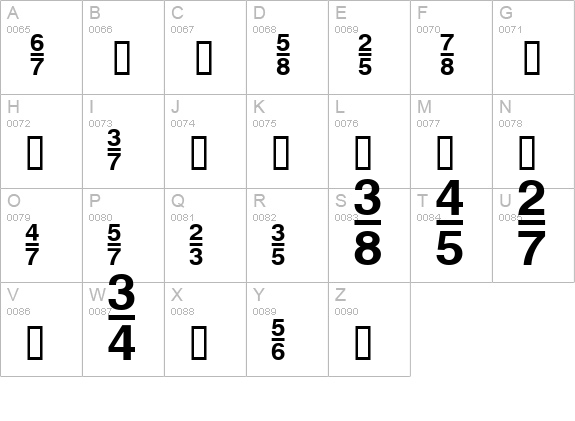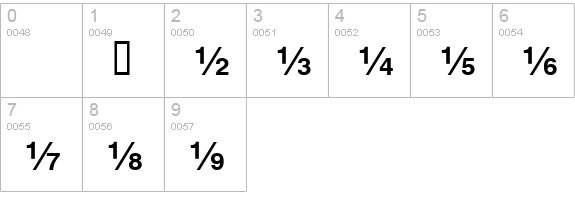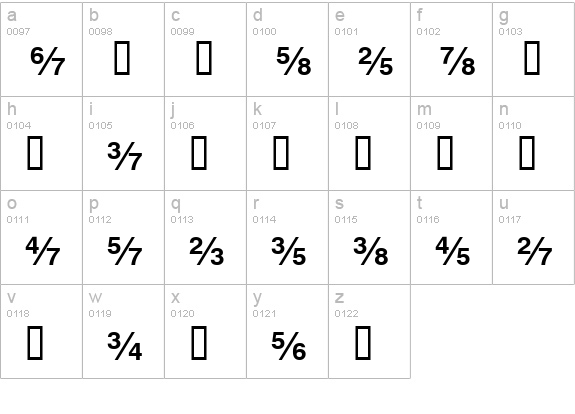
HeFractions Bold Font Details
HeFractions Bold is a strong, high-contrast variant in the HeFractions typeface family \xE2\x80\x94 well suited to headlines, attention-grabbing titles, and strong calls-to-action.
Introducing HeFractions Bold, a sleek and modern font designed to make a bold statement. This font exudes confidence and professionalism, making it the perfect choice for any project that requires a touch of sophistication. HeFractions Bold features clean lines and crisp edges, ensuring legibility even at smaller sizes. Its bold weight adds emphasis and impact, making it ideal for headlines, titles, and branding materials. Whether you're designing a logo, creating a poster, or crafting a website, this font will elevate your work to new heights. Not only does HeFractions Bold offer exceptional visual appeal, but it also provides a practical solution for those working with fractions. The font includes a comprehensive set of fraction glyphs, allowing for seamless integration of numerical expressions in a visually pleasing manner. But what truly sets HeFractions Bold apart is that it is freely available to download at FontsMarket.com. This means that you can effortlessly access this high-quality font without any cost or hassle. Take advantage of this opportunity to enhance your design projects with a font that combines elegance, functionality, and accessibility. Download HeFractions Bold today and experience the limitless possibilities it brings to your creative endeavors. With its timeless design and versatility, this font is sure to become a go-to choice for designers, professionals, and enthusiasts alike. Elevate your typography game and make a lasting impression with HeFractions Bold.